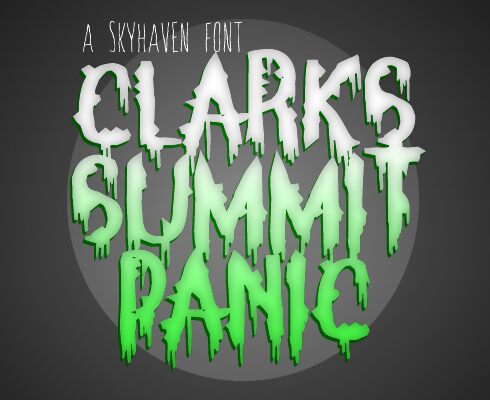
Clarks Summit Panic from Skyhaven is a free horror display font with tall, hacked-looking letters. Ragged edges and tears make the forms resemble ripped paper or splintered wood. Long drips and uneven cuts give the alphabet a restless silhouette.
Halloween posters are its clearest use, especially when the lettering becomes part of the scare. It also suits haunted-house signage, horror game titles, and band merchandise. The torn shapes echo scratches, shadows, and distressed artwork in those settings.
Clarks Summit Panic